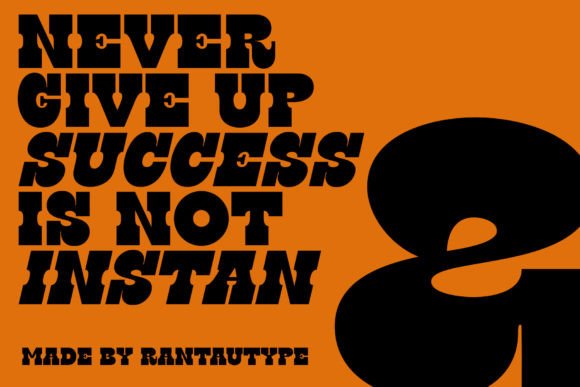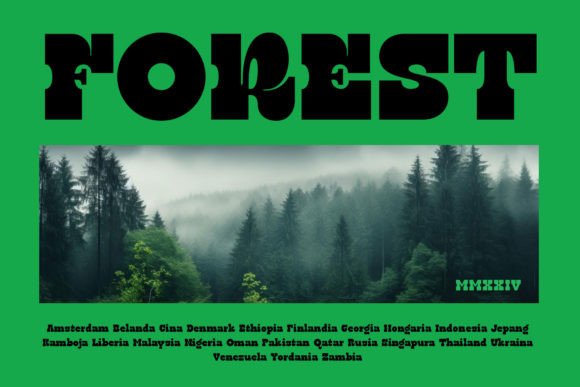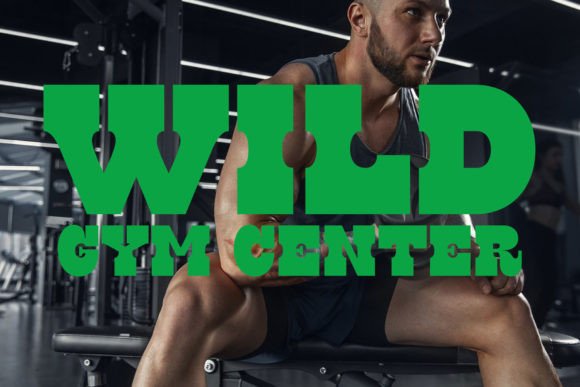
Introduction to Ratego Font
Ratego is a vintage font with bold curves that make it look unique, funky, fun, modern, and versatile Font.
Its playful and charismatic characters evoke a sense of joy and whimsy, making it the perfect choice for projects that seek to transport audiences back in time or evoke a touch of vintage charm This font is PUA encoded which means you can access all of the amazing glyphs and ligatures with ease.
Key Features of Ratego Font